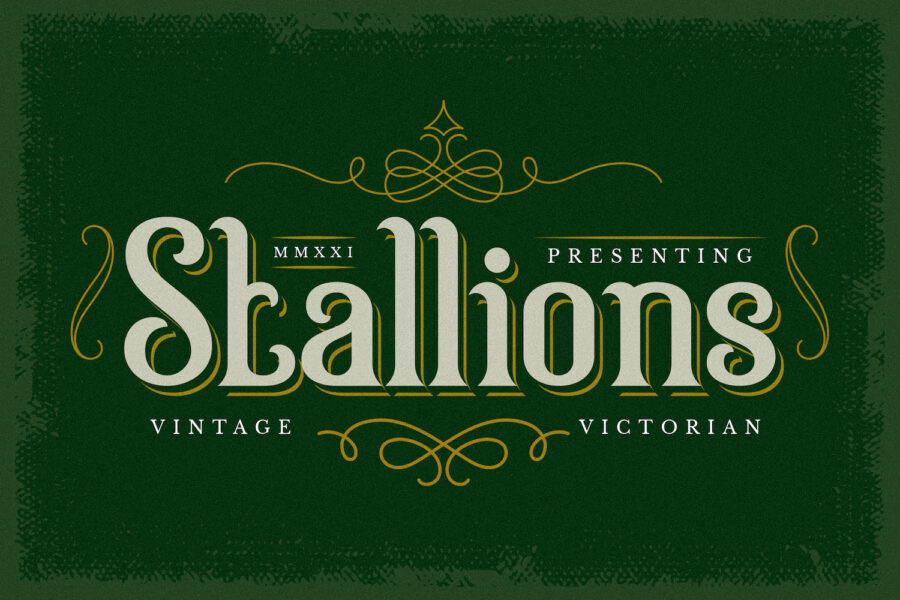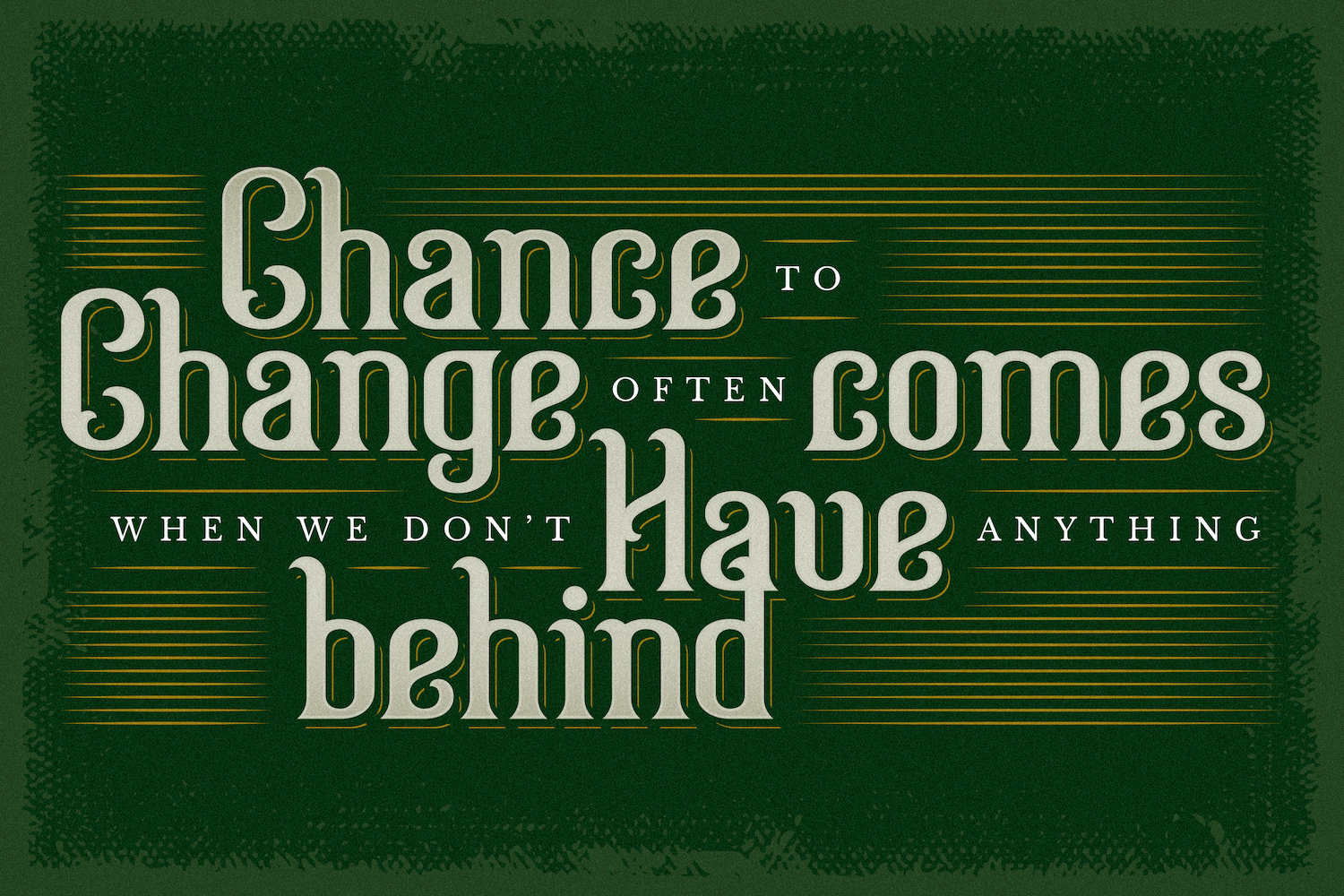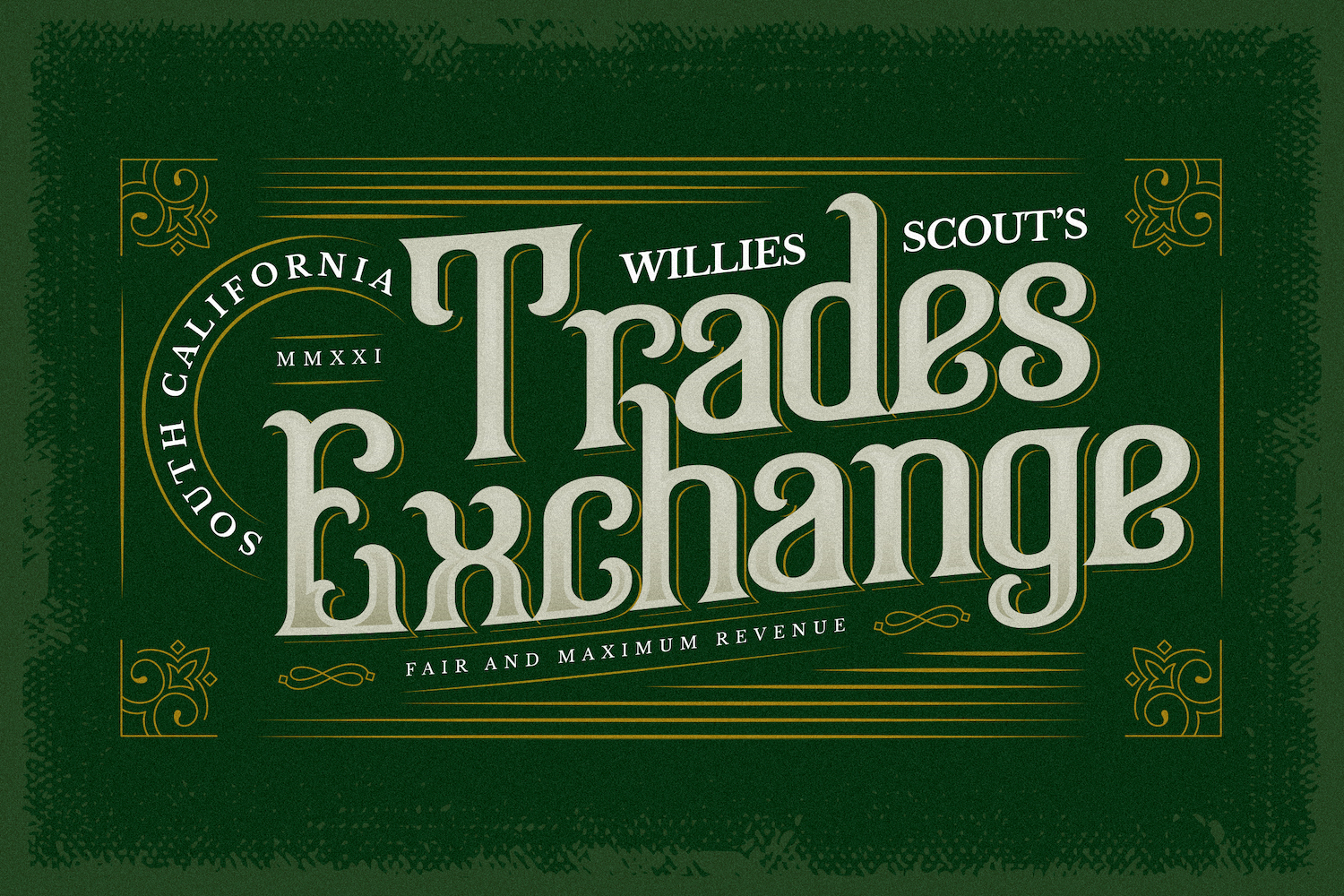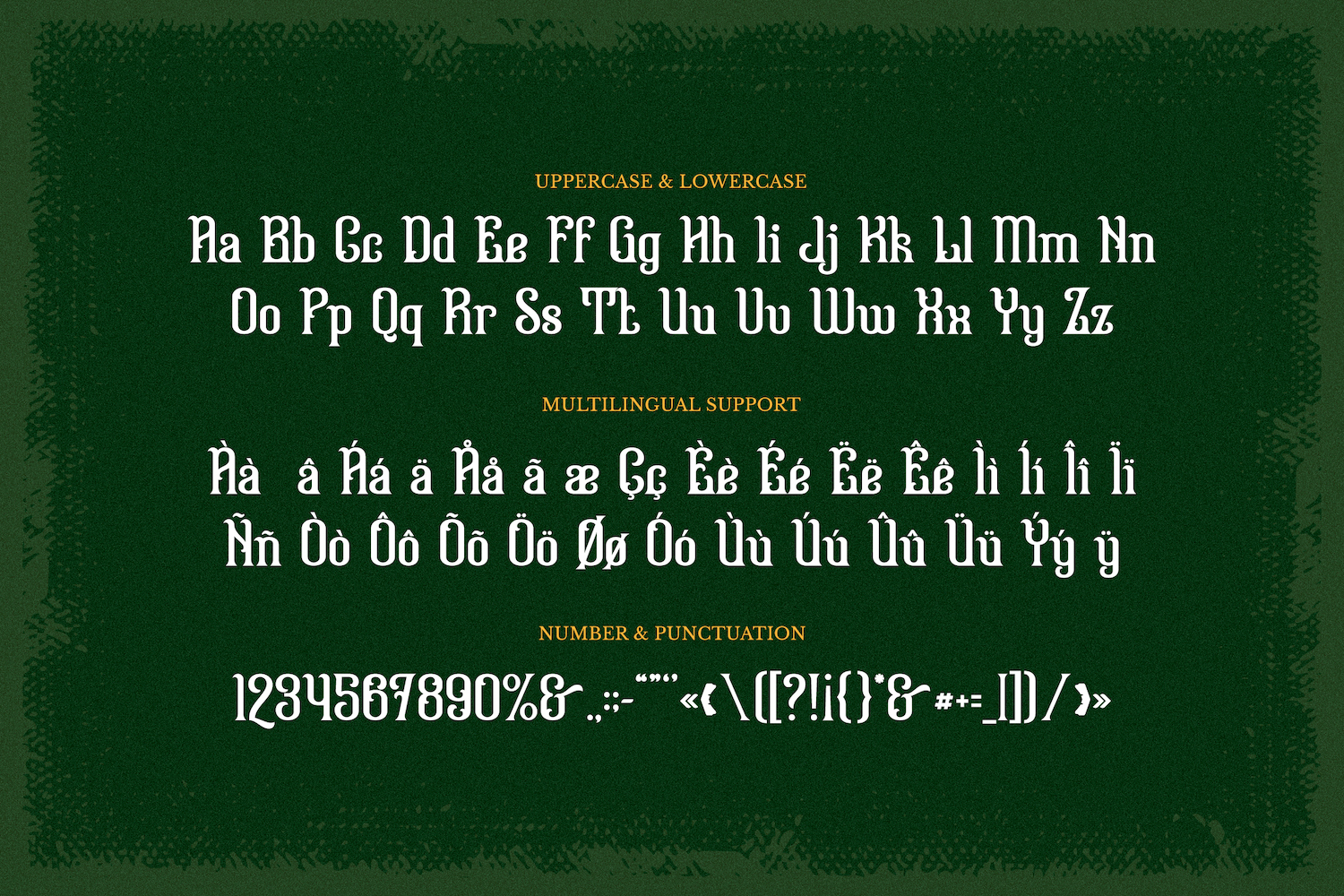
Stallions is a bold and elegant vintage font inspired by Victorian-era aesthetics. With its ornate strokes, sharp contrast, and decorative flair, Stallions evokes a sense of timeless sophistication. Each letter is meticulously crafted to reflect the ornamental grandeur of 19th-century design, making it perfect for branding, packaging, signage, and editorial layouts that demand historical richness and classic appeal.
Equipped with multilingual support and a full set of punctuation, numbers, and ligatures, Stallions ensures both function and form. Its unique blend of elegance and strength makes it suitable for luxury products, vintage logos, whiskey labels, and formal invitations. This font stands out in both print and digital formats, delivering visual impact with a nostalgic charm.
Stallions